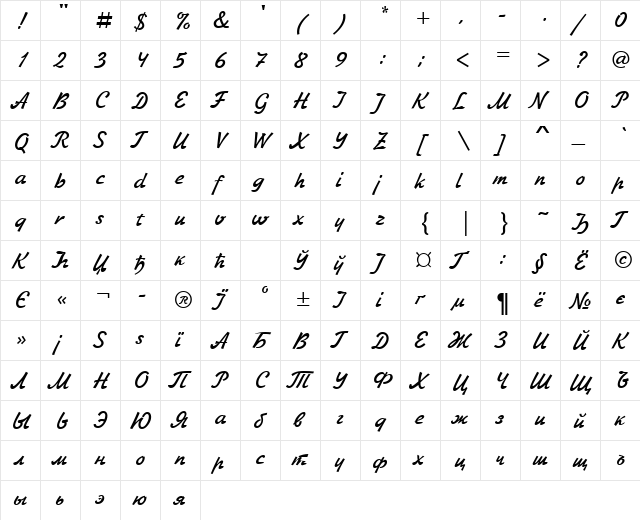
ZhikharevCTT Regular
Design Context for ZhikharevCTT Typeface
ZhikharevCTT is a composed and adaptable typeface that performs quietly and consistently across a wide range of design contexts.